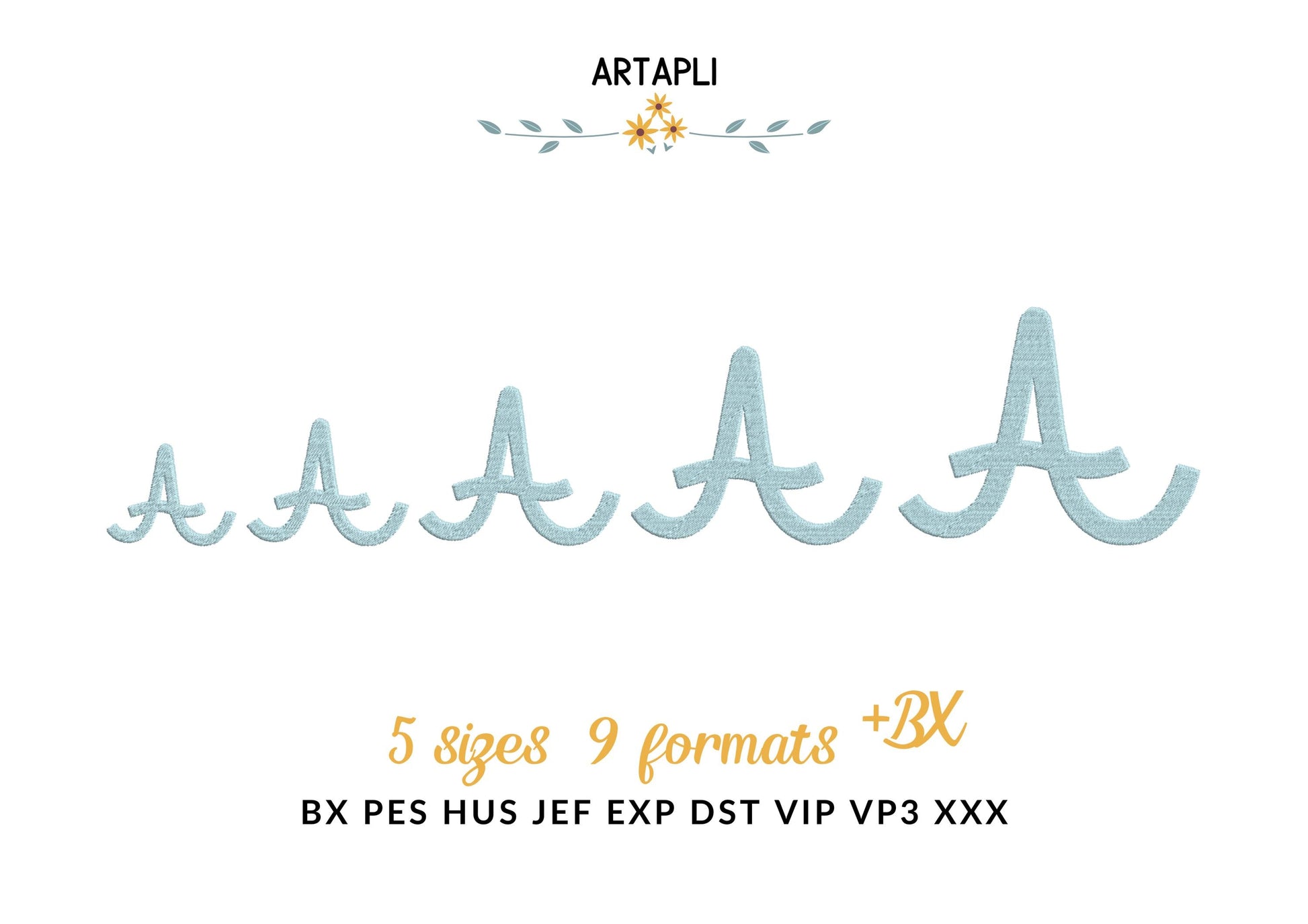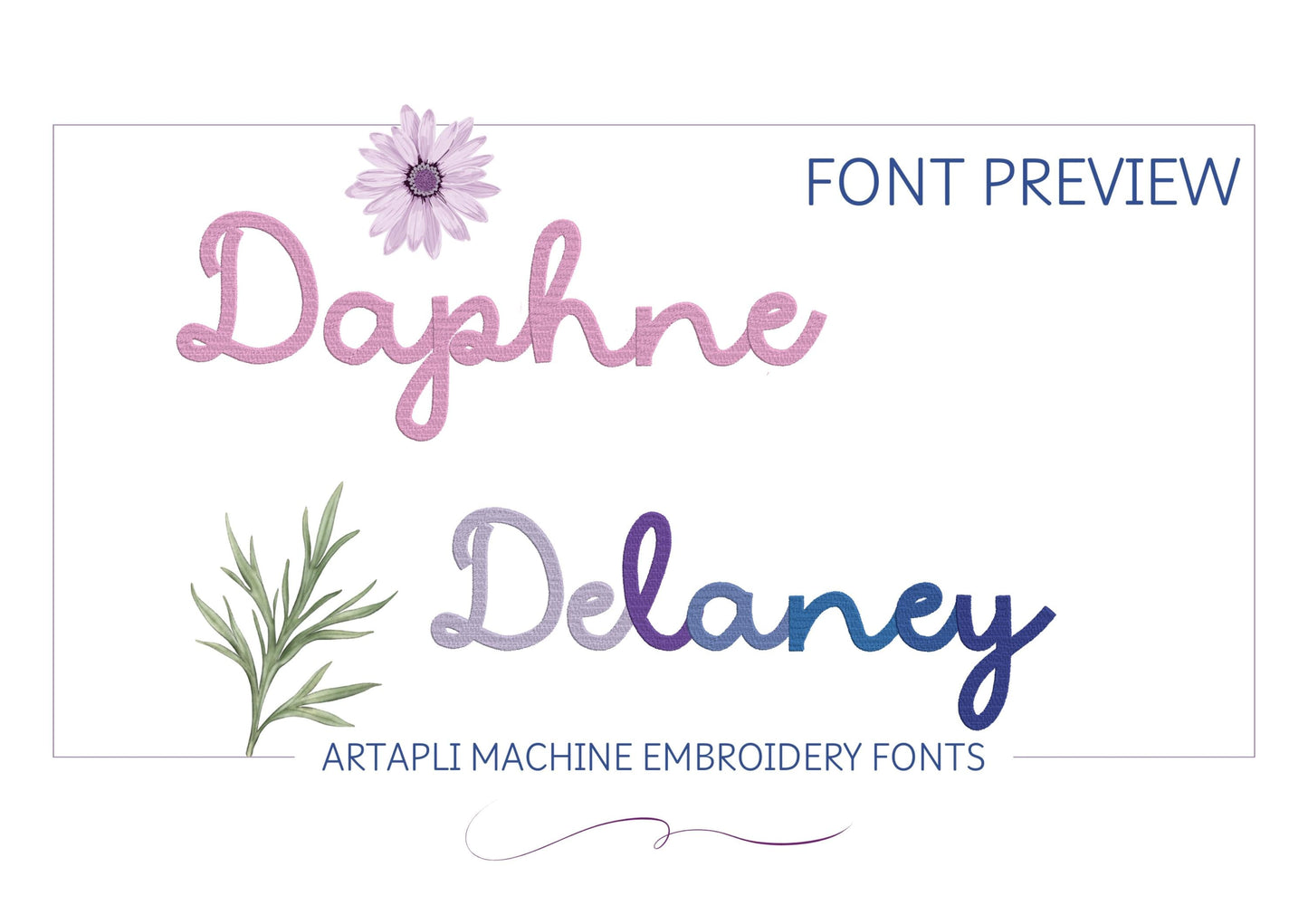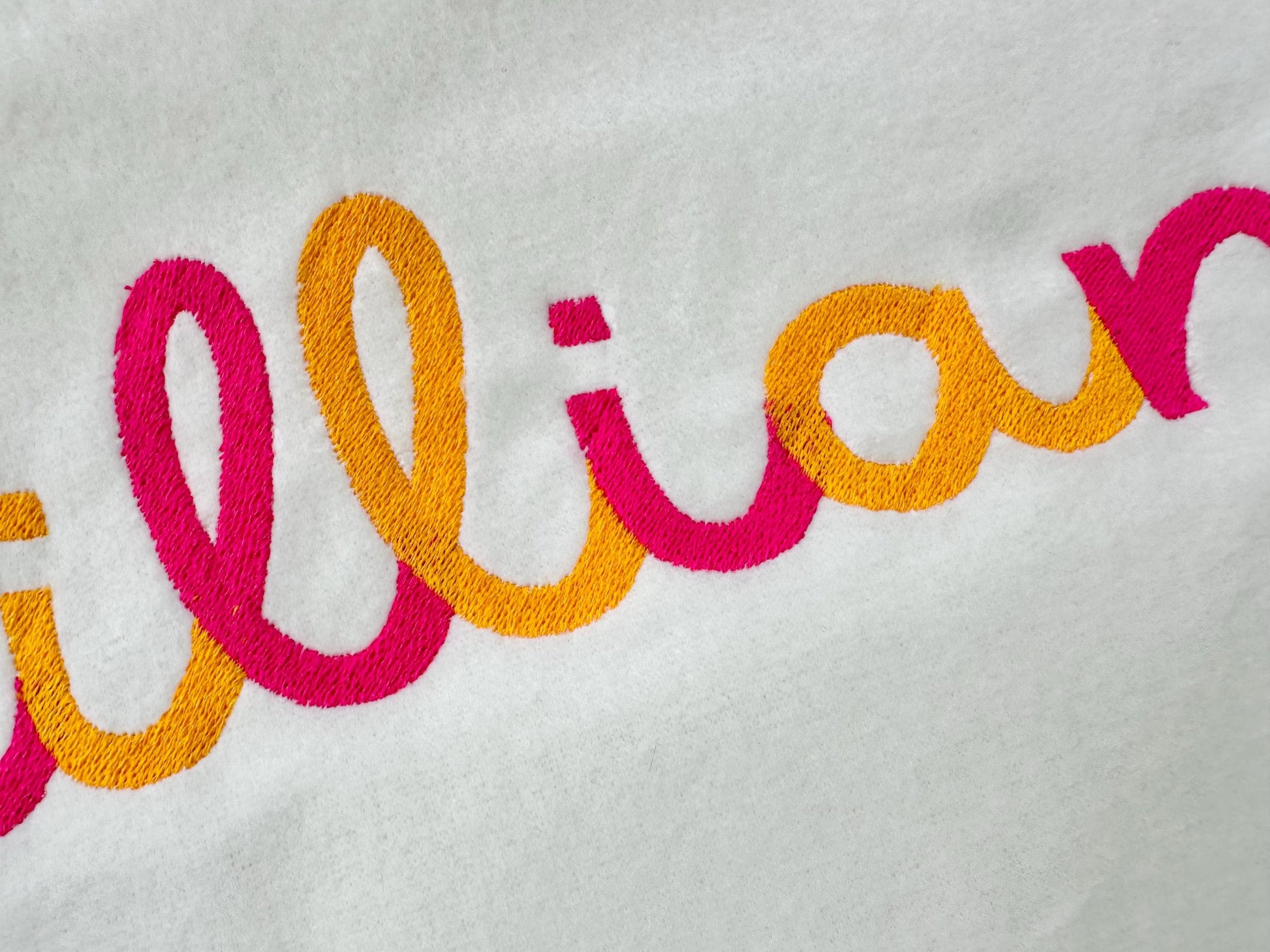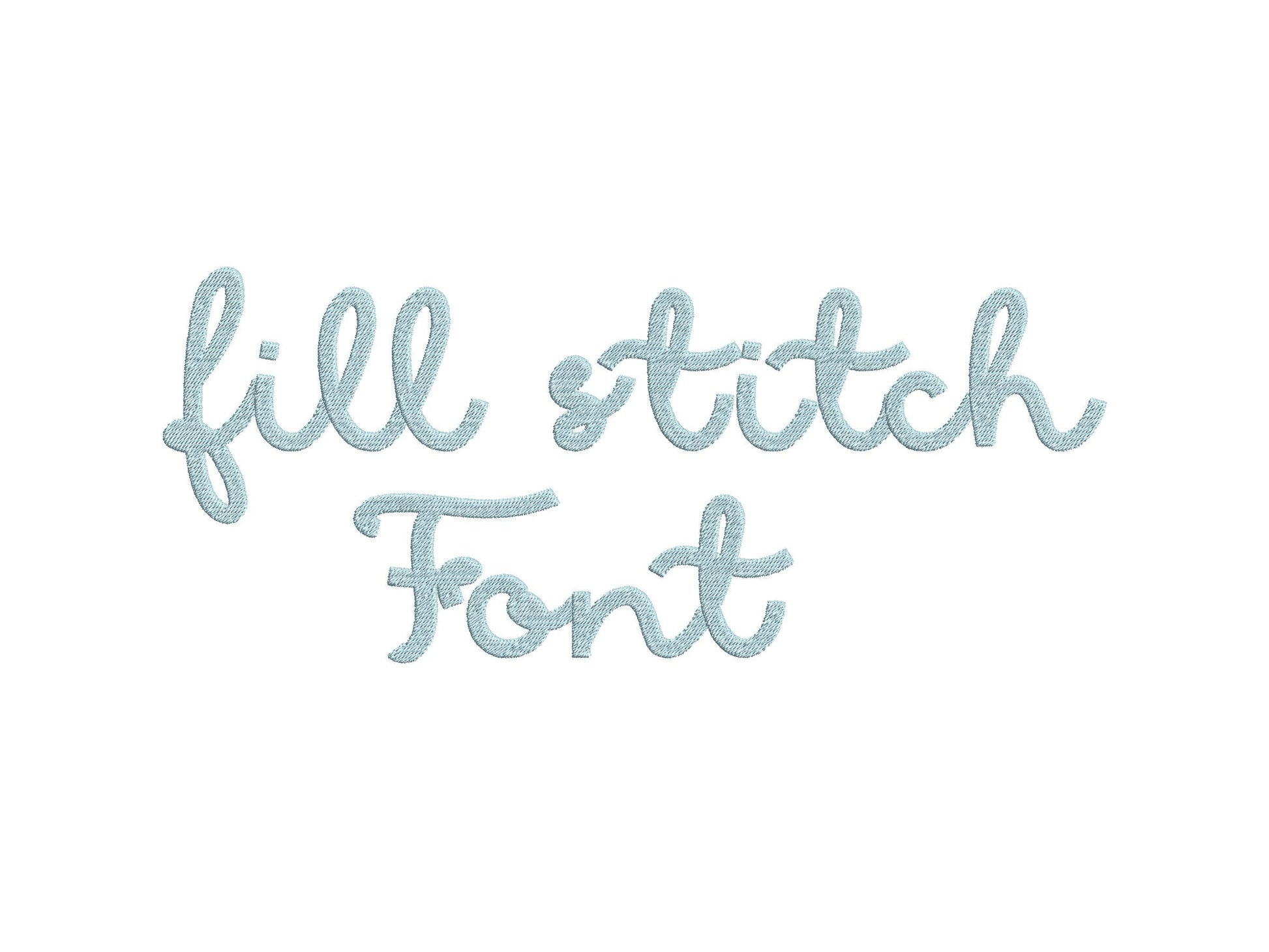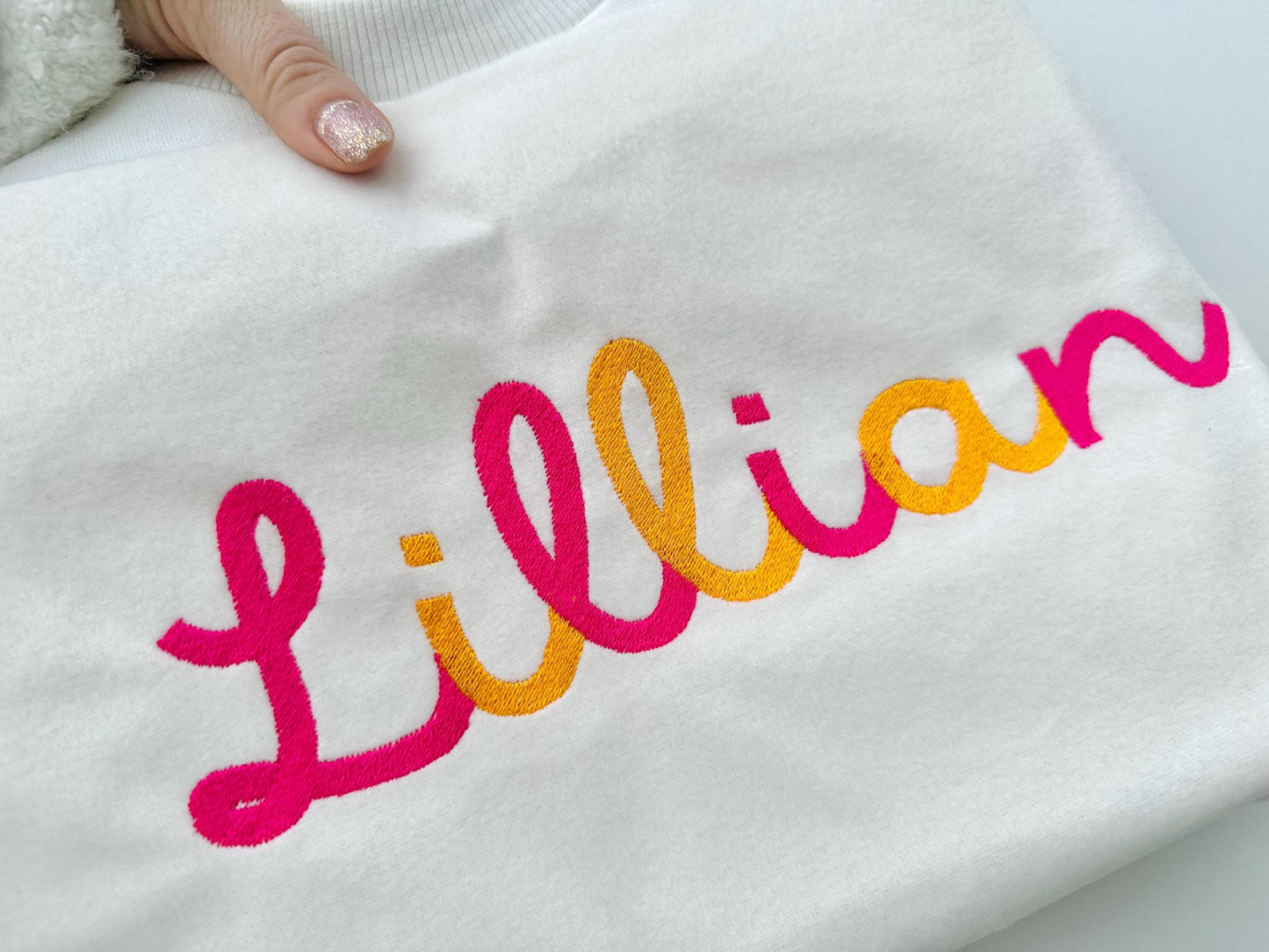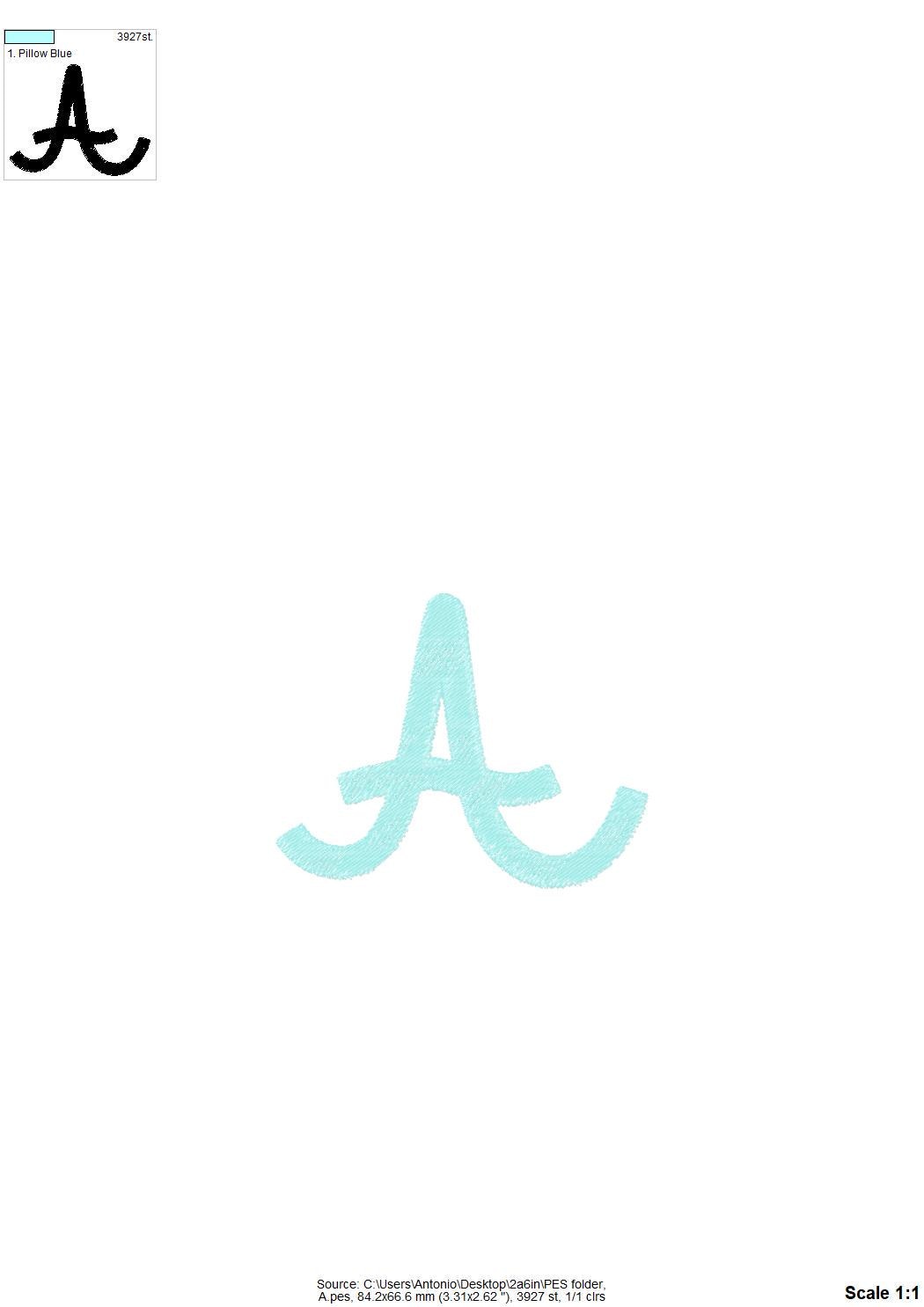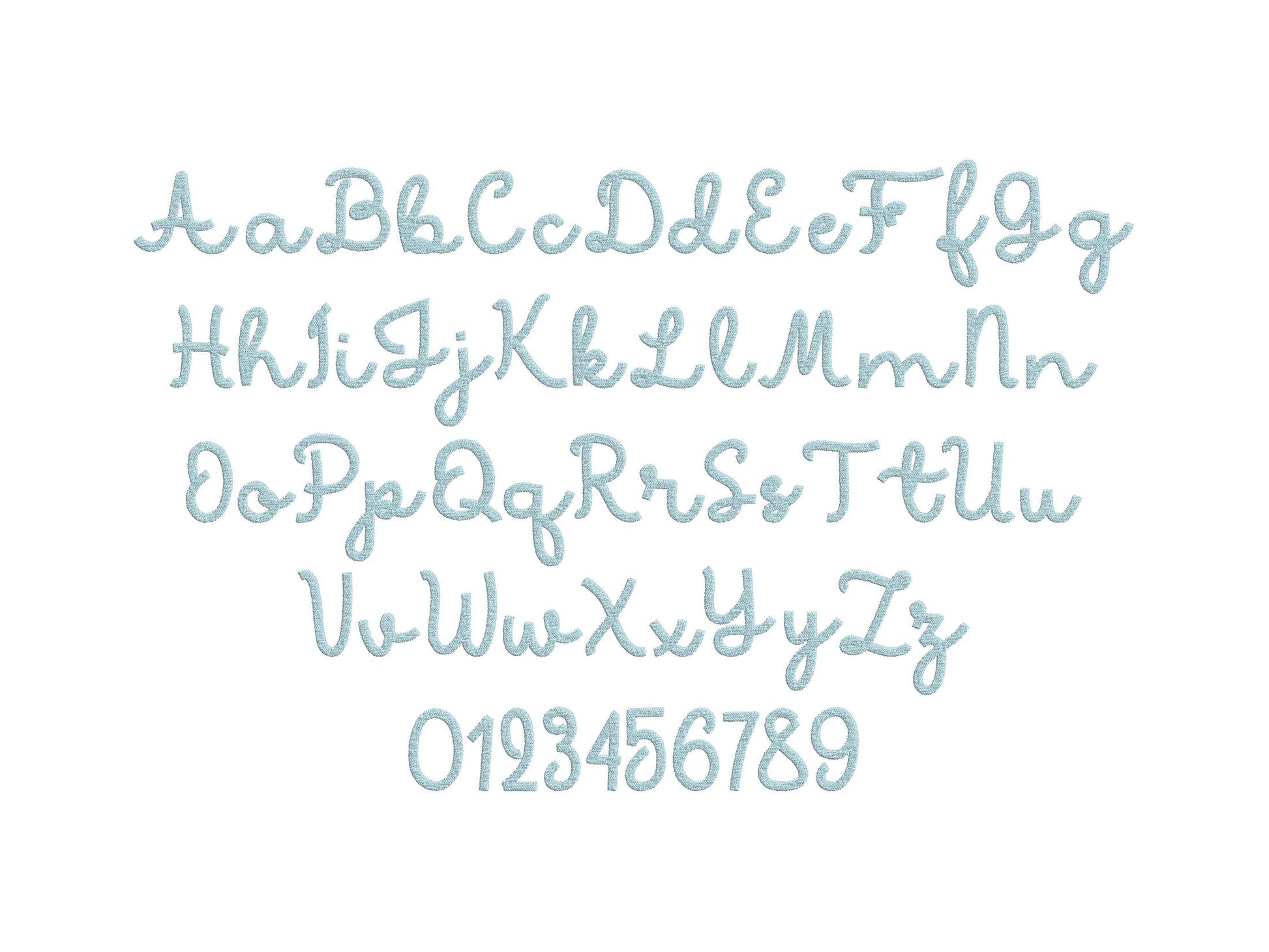
Or click to open the linkA handwritten script in fill stitch. Great for kids' names and monograms on shirts, bags, blankets and bibs.
Uppercase and lowercase letters and numbers 0 to 9. Five sizes: 1.8, 2.2, 2.6, 3.4 and 4 inches.